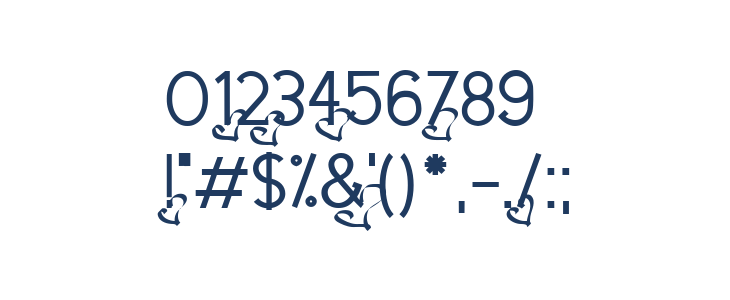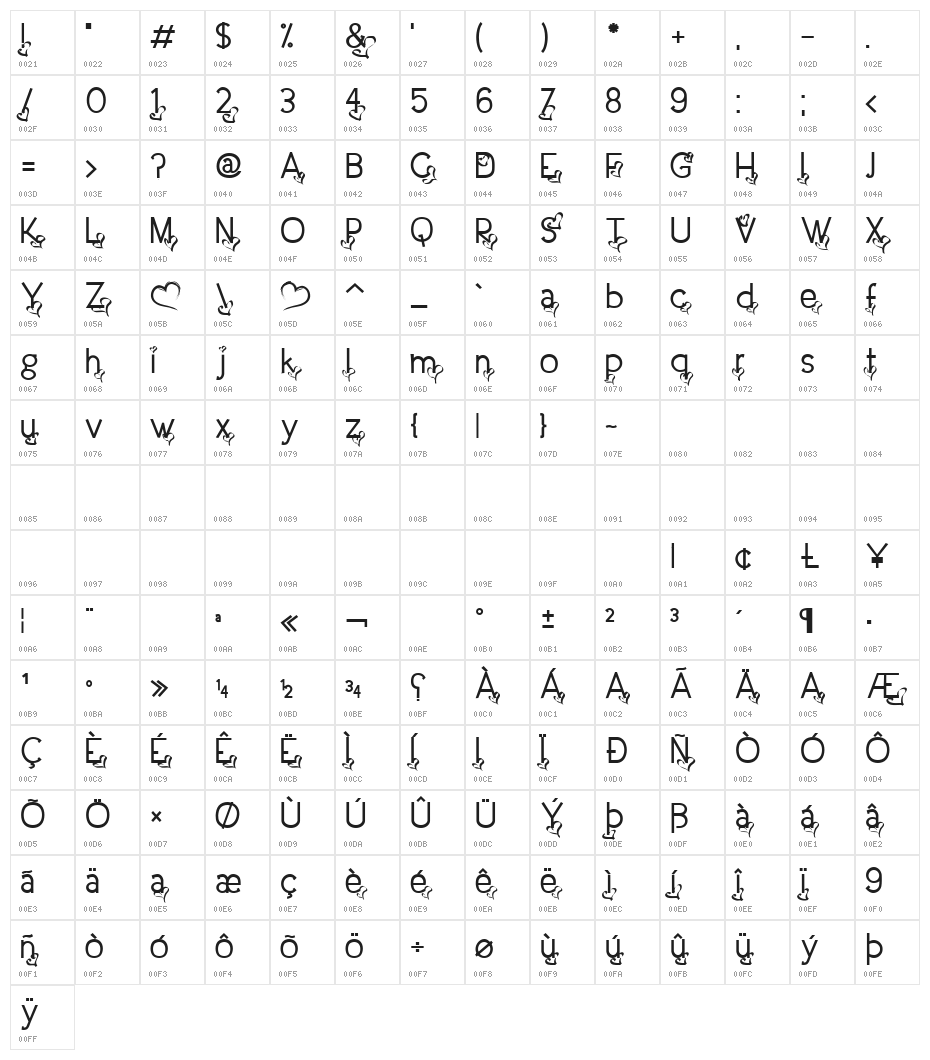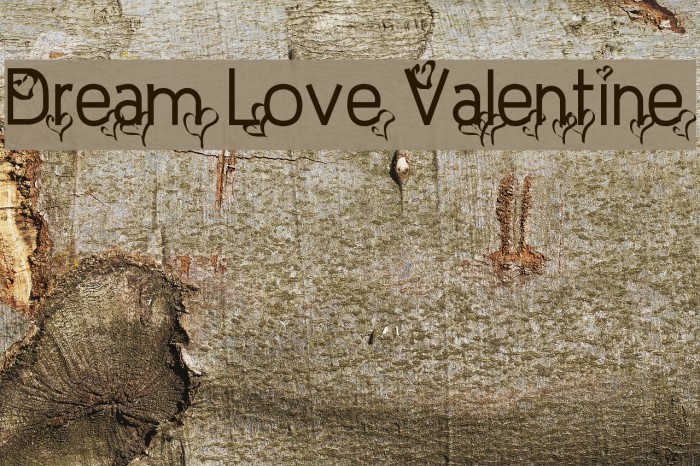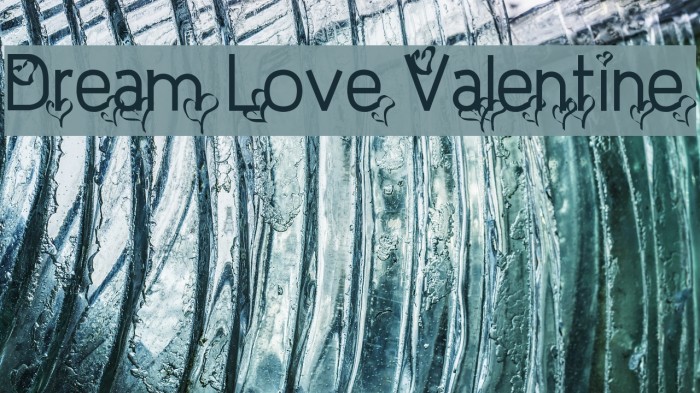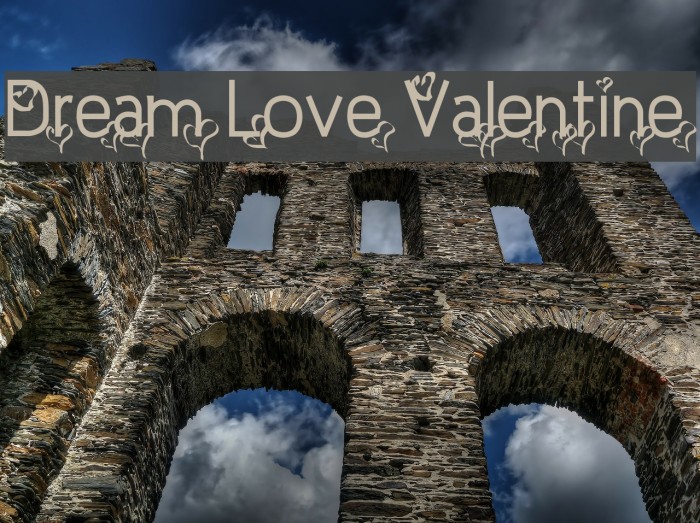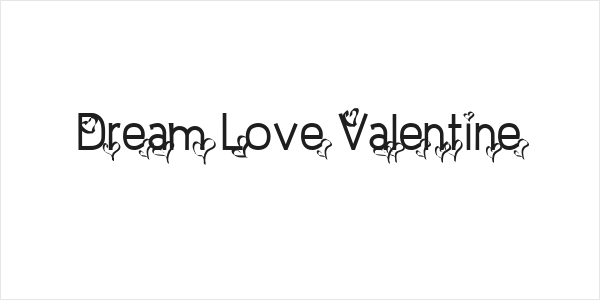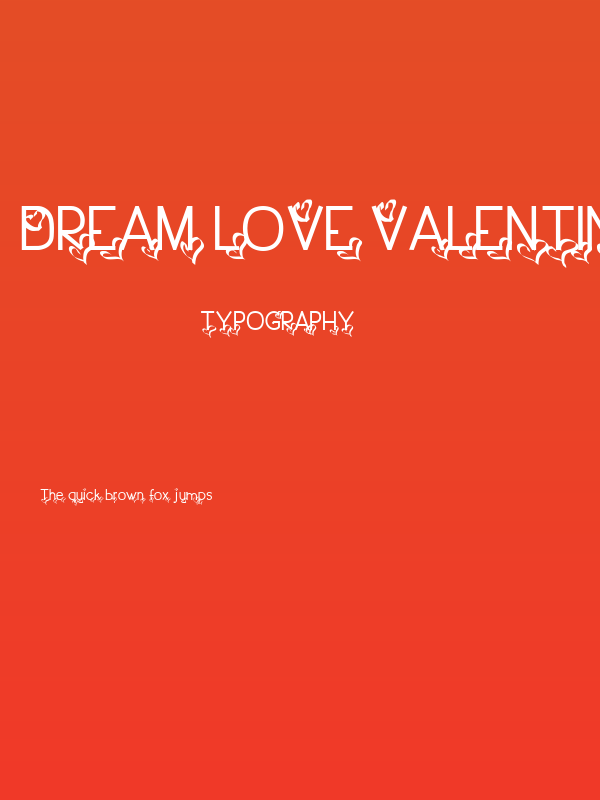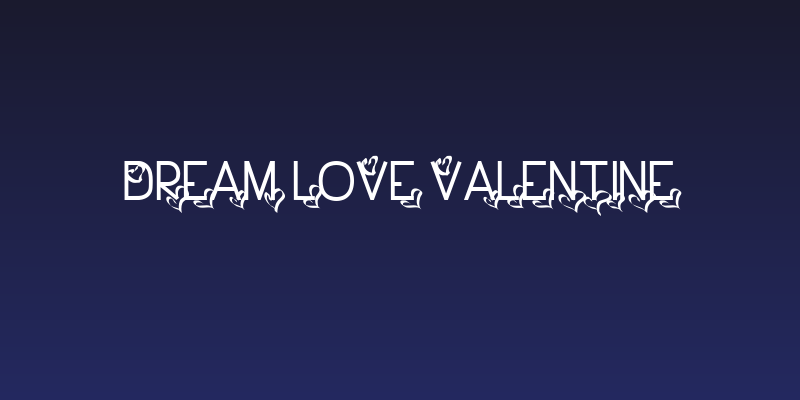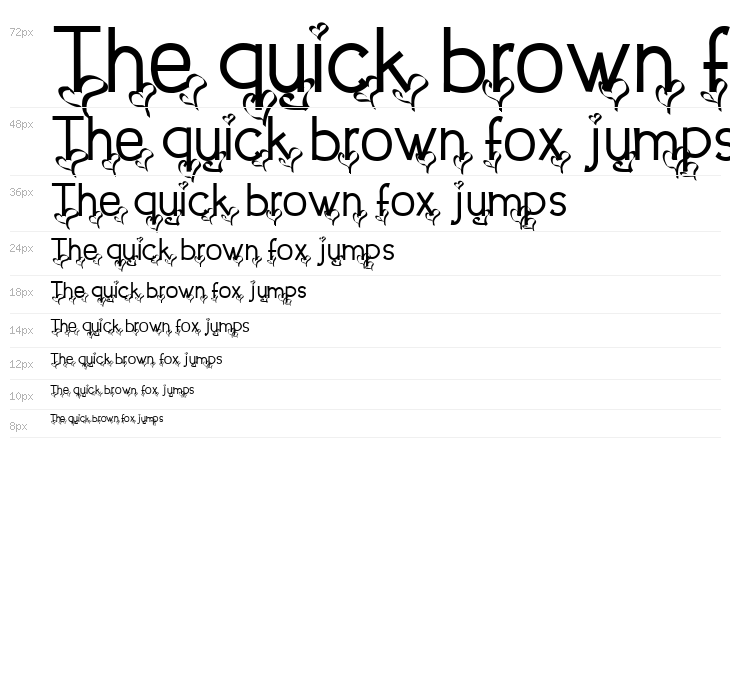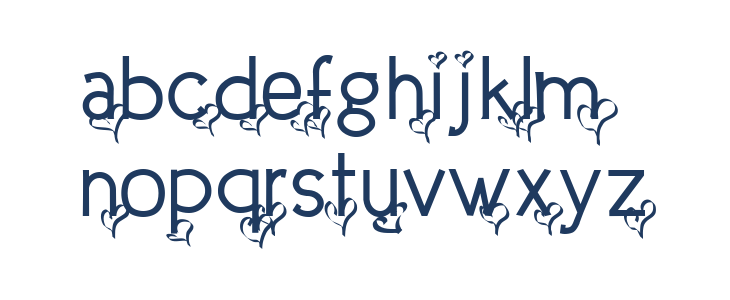
Dream Love Valentine Font
Dream Love Valentine Description
This font features a playful and romantic design, incorporating heart motifs into the structure of each character. The uppercase and lowercase letters are adorned with small heart shapes, giving it a whimsical and affectionate appearance. The numerals and special characters also carry this theme, making it ideal for projects that require a touch of love and charm. The font maintains a clean and legible structure, ensuring readability while adding decorative flair. Its unique style makes it perfect for Valentine's Day themes, wedding invitations, and other romantic occasions.
| Proposed Projects | Ideal for Valentine's Day cards, wedding invitations, love-themed posters, and romantic branding. |